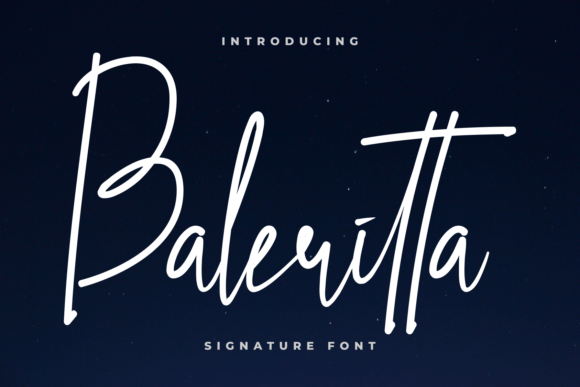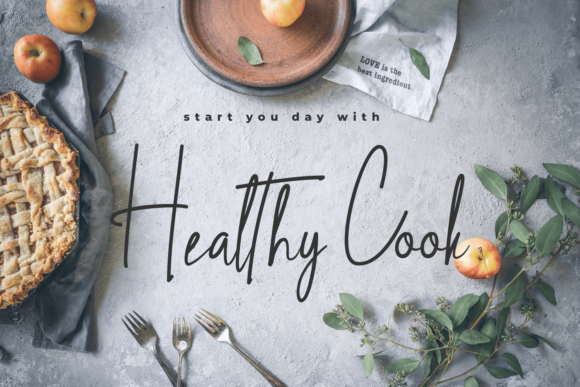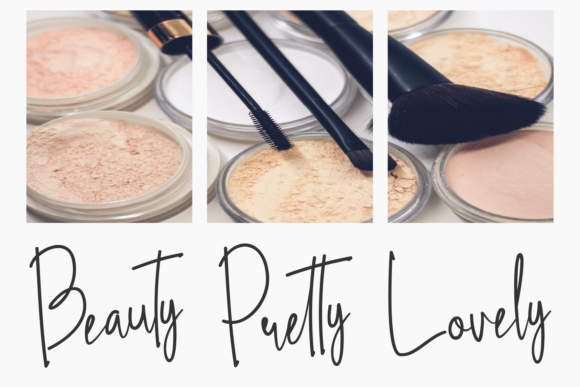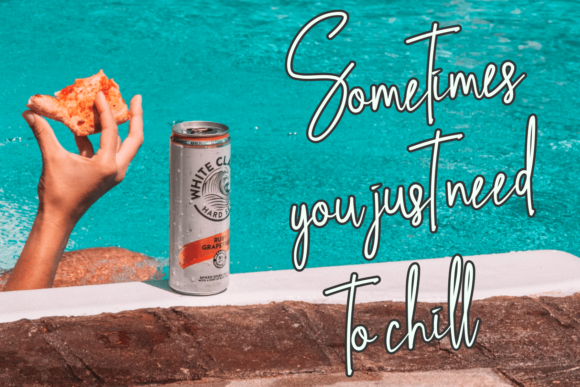
Baleritta Font
About Baleritta Font
Baleritta is a lovely and timeless handwritten font. It is the best choice for creating eye catching logos, branding and quotes. Every letter has a unique and beautiful touch, which will make your design come alive!